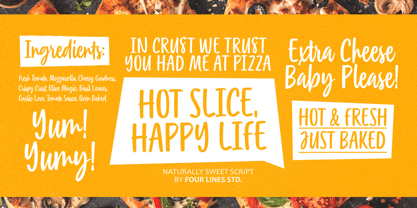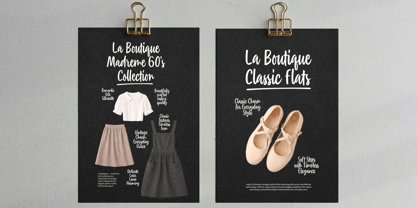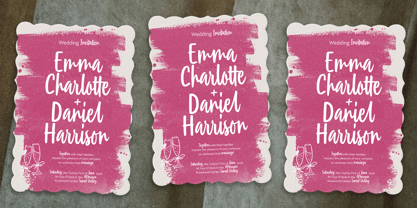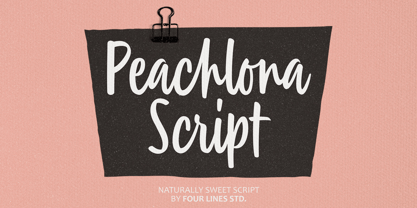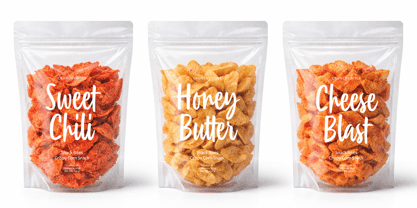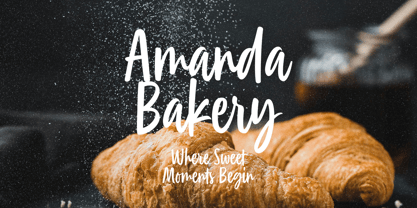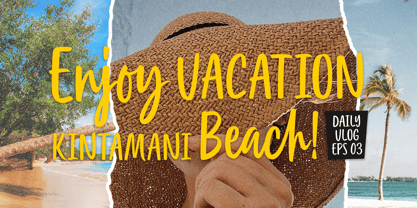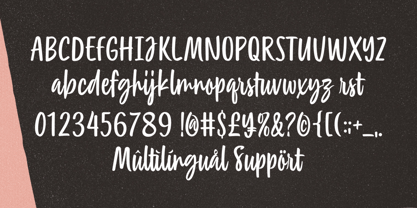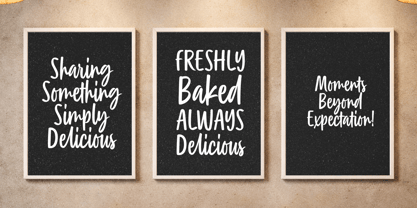
Peachlona Script
by Four Lines Std
The Peachlona Script Font Family was designed by Zain Fahroni and published by Four Lines Std. Peachlona Script contains 1 styles. More about this family
Peachlona Script is a handwritten script font with a soft, natural style and clear readability. It is designed to bring a warm and friendly touch to a wide range of design needs. The letterforms flow smoothly with a relaxed handwritten feel, making the font suitable for titles, logos, and decorative elements in design. Peachlona works well for many creative projects such as branding, product packaging, posters, invitations, and social media content.